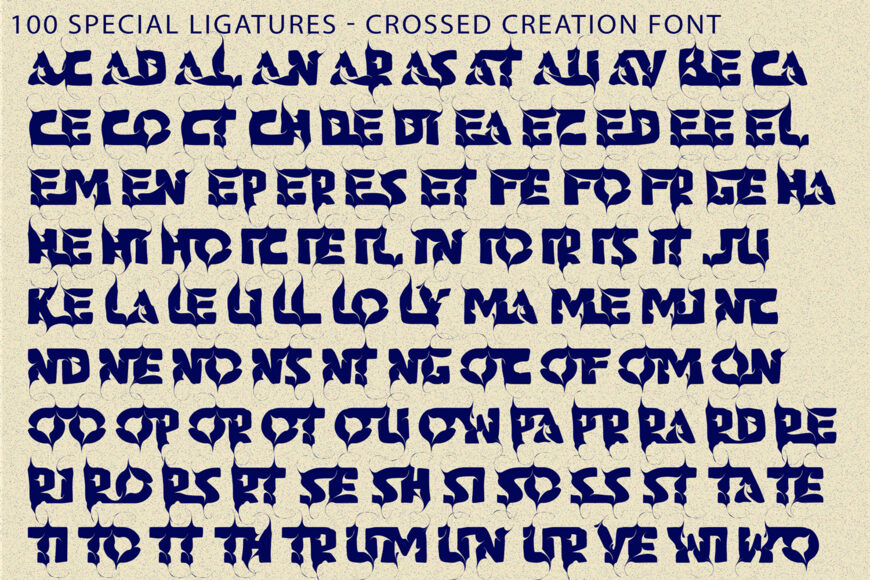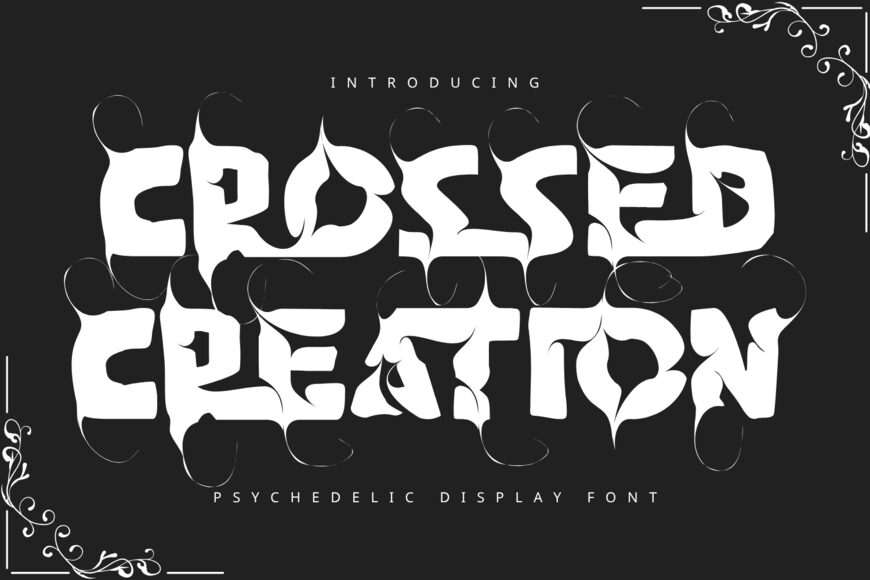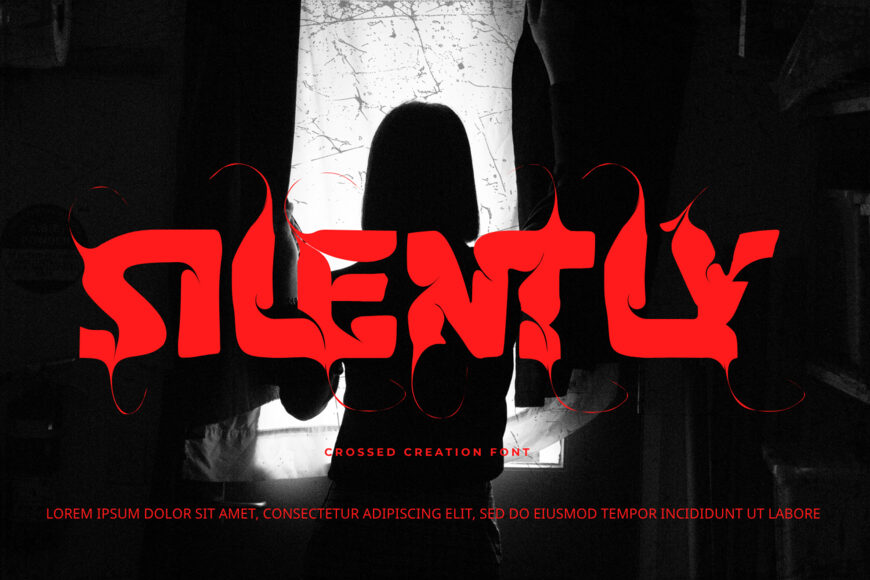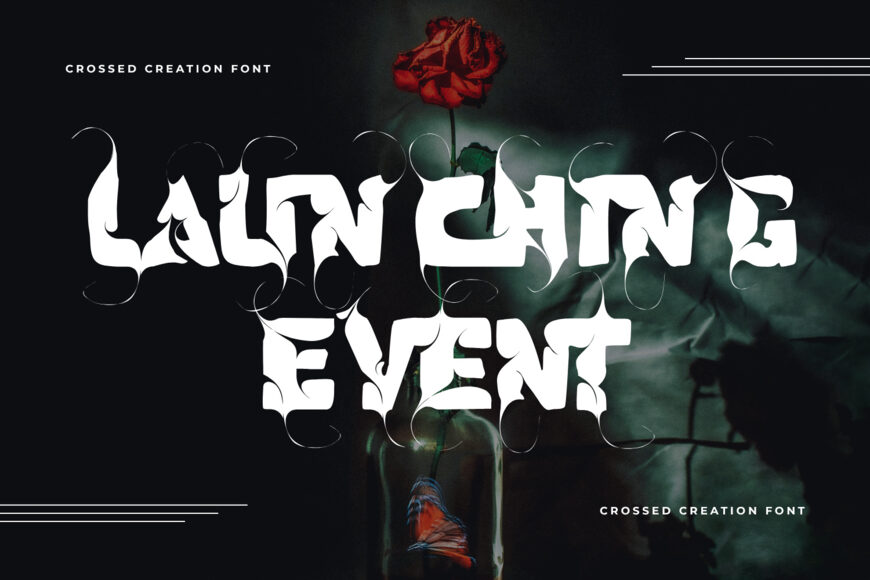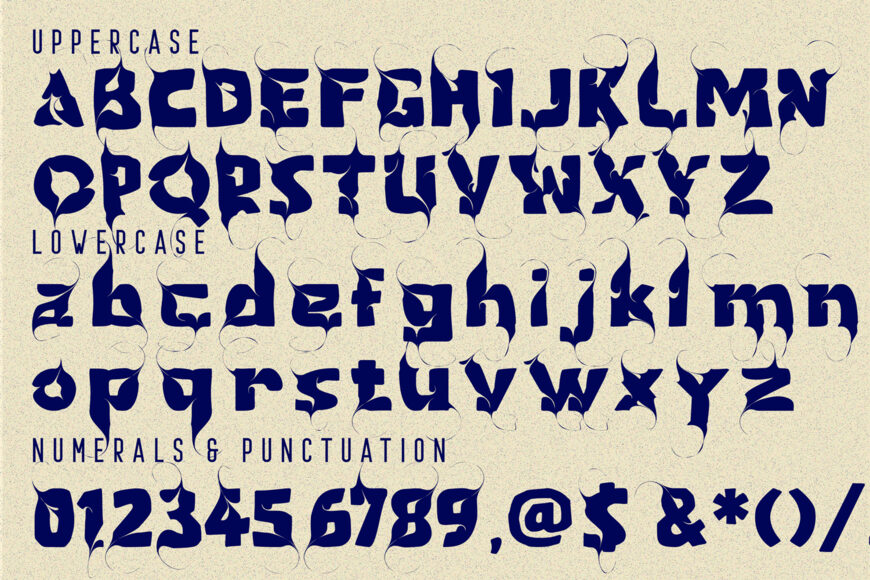
Crossed Creation Font
Crossed Creation is a high-impact display font engineered at the intersection of heavy brutalist typography and intricate Cyber Sigilism art. Defined by its massive blocky stems juxtaposed against whisper-thin, needle-sharp tendrils, this typeface exudes a raw dark fantasy energy that commands immediate visual dominance.
Crafted with chiseled inner cutouts and sweeping spiky flourishes, Crossed Creation transforms standard headlines into bespoke typographic sigils. It is the ultimate choice for heavy metal and phonk album covers, dark fantasy game UI, aggressive streetwear apparel, gothic event posters, and tattoo-inspired branding.